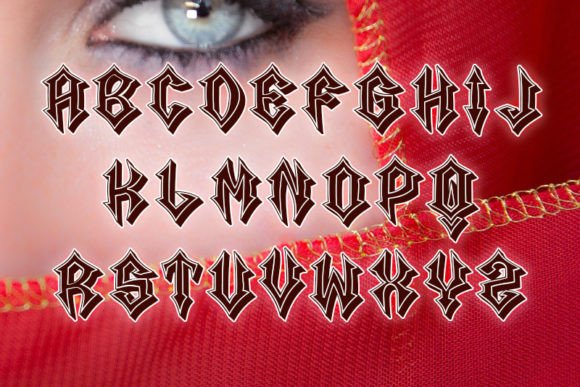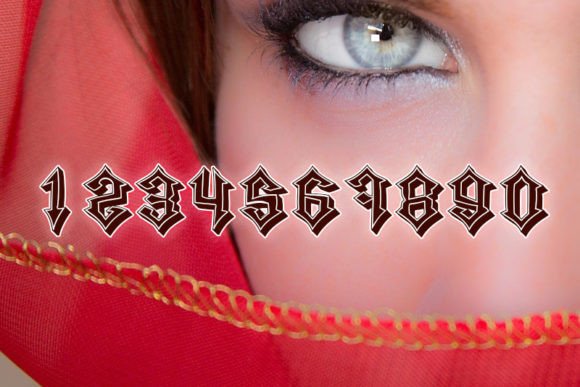
Fahida Font: A Bold and Daring 3D Gothic Display Typeface
Are you looking for a font that will add a touch of edginess and sophistication to your designs? Look no further than Fahida Font, a cool 3D gothic display typeface that is sure to inspire your next creative project. With its bold and daring typography, Fahida Font is perfect for designers and crafters who want to make a statement.
What is Fahida Font?
Fahida Font is a unique and eye-catching 3D gothic display typeface that is designed to add a touch of drama and elegance to your designs. Its bold and daring typography makes it perfect for use on posters, flyers, apparel, and any other project that requires a statement piece. Whether you’re a designer, crafter, or simply someone who loves typography, Fahida Font is a great addition to your font collection.
Key Features of Fahida Font
Fahida Font has several key features that make it stand out from other fonts. Some of its notable features include:
- 3D Gothic Design: Fahida Font has a unique 3D gothic design that gives it a bold and daring look.
- Display Typeface: Fahida Font is a display typeface, making it perfect for use on large-scale designs such as posters, flyers, and billboards.
- Bold and Daring Typography: Fahida Font has a bold and daring typography that is sure to grab attention.
- High-Quality Design: Fahida Font is designed with high-quality and precision, ensuring that it looks great in any design.
Uses of Fahida Font
Fahida Font is a versatile font that can be used on a variety of design projects. Some of the most popular uses of Fahida Font include:
- Posters and Flyers: Fahida Font is perfect for use on posters and flyers, adding a touch of drama and elegance to your designs.
- Apparel: Fahida Font can be used on apparel such as t-shirts, hoodies, and hats, making it a great choice for fashion designers.
- Logos and Branding: Fahida Font can be used to create bold and daring logos and branding materials.
- Signage and Billboards: Fahida Font is perfect for use on large-scale signage and billboards, grabbing attention from a distance.
Why Choose Fahida Font?
There are many reasons why you should choose Fahida Font for your next design project. Some of the benefits of using Fahida Font include:
- Unique and Eye-Catching Design: Fahida Font has a unique and eye-catching design that is sure to grab attention.
- High-Quality and Precision: Fahida Font is designed with high-quality and precision, ensuring that it looks great in any design.
- Versatility: Fahida Font is a versatile font that can be used on a variety of design projects.
Tips for Using Fahida Font
Here are some tips for using Fahida Font in your designs:
- Use it Boldly: Fahida Font is a bold and daring font, so don’t be afraid to use it boldly in your designs.
- Experiment with Colors: Fahida Font looks great in a variety of colors, so experiment with different colors to find the one that works best for your design.
- Pair it with Other Fonts: Fahida Font can be paired with other fonts to create a unique and interesting design.
- Use it for Headlines: Fahida Font is perfect for use on headlines, adding a touch of drama and elegance to your designs.
Fahida Font is a bold and daring 3D gothic display typeface that is sure to inspire your next design project. With its unique and eye-catching design, high-quality and precision, and versatility, Fahida Font is a great addition to any font collection. Whether you’re a designer, crafter, or simply someone who loves typography, Fahida Font is a great choice for any design project.